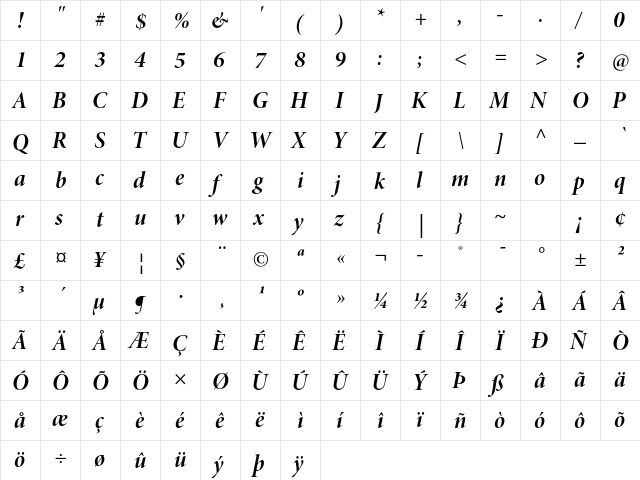
Minion Pro Bold Italic Display
Bold Italic Display ·  Robert Slimbach ·
Design Context for Minion Pro Typeface
Minion Pro is built around its visual character rather than neutral utility — its distinctive forms are designed to make an impression at display sizes. Its italic angle brings a sense of urgency and motion to the letterforms. The heavy weight commands attention and anchors typographic hierarchies.
Font Pairing: Pair with a clean neutral sans-serif for body copy to let Minion Pro's character lead without overwhelming the composition.
Pro Tip: Use Minion Pro exclusively at display sizes — it was designed to be seen, not read at length. Let a neutral companion handle body copy.